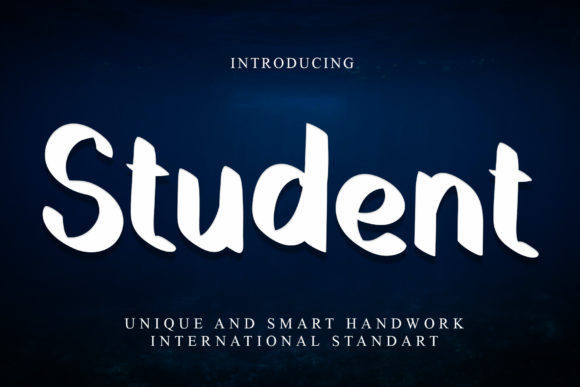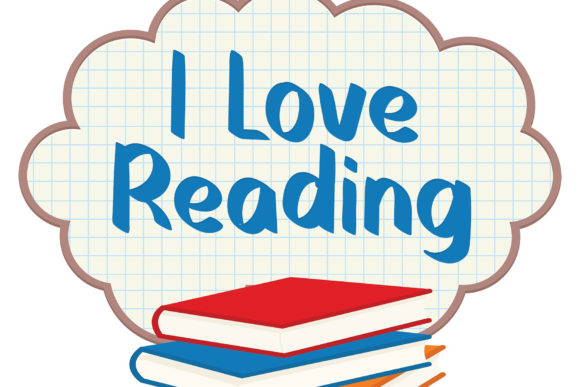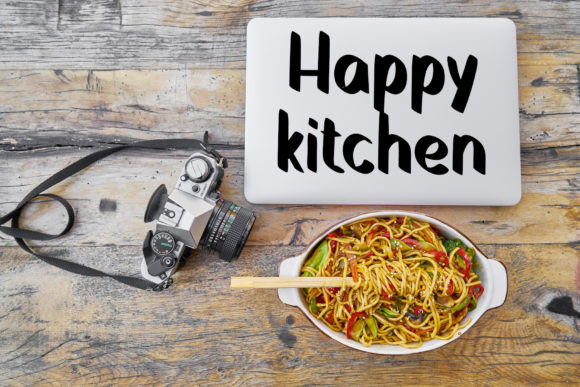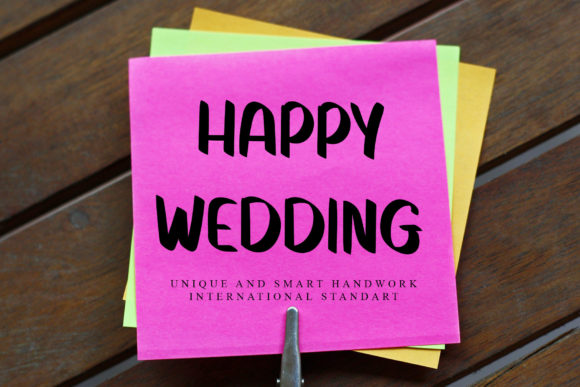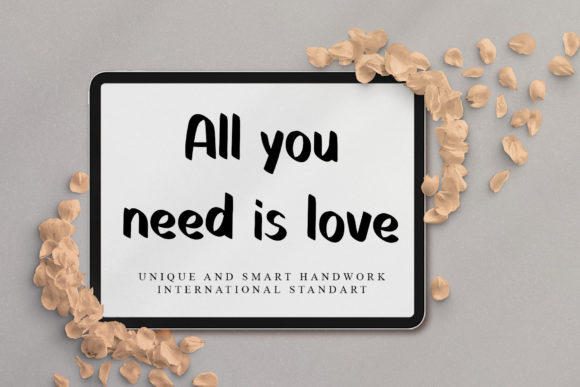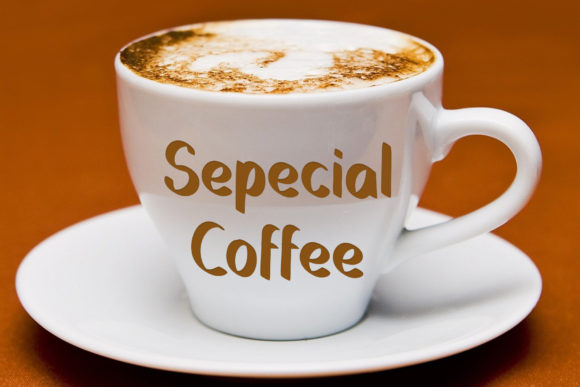
Student Font
About Student Font
Student is a cool and thick lettered handwritten font, that features an adaptable style. It is defined by smooth curves and is perfect for fashion branding or editorial designs.